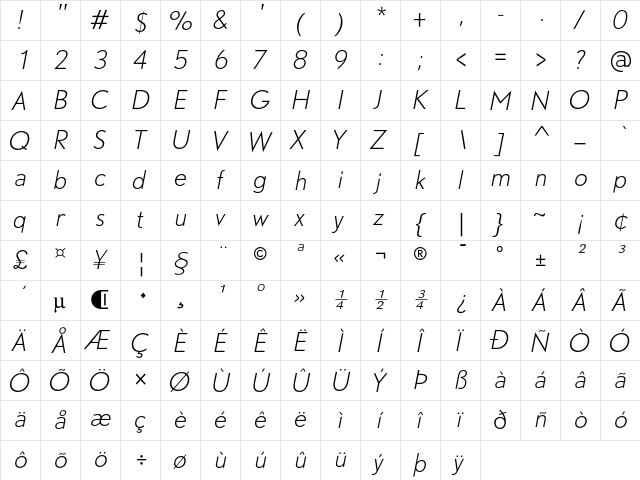
DTLNobelT Light-Italic
Design Context for DTLNobelT Typeface
DTLNobelT is a composed and adaptable typeface that performs quietly and consistently across a wide range of design contexts. The slanted form adds forward momentum and visual energy. The delicate stroke weight brings airiness and refinement to layouts.
Pro Tip: Use DTLNobelT for emphasis, pull quotes, and subheadings where its slanted energy can add rhythm to the layout.